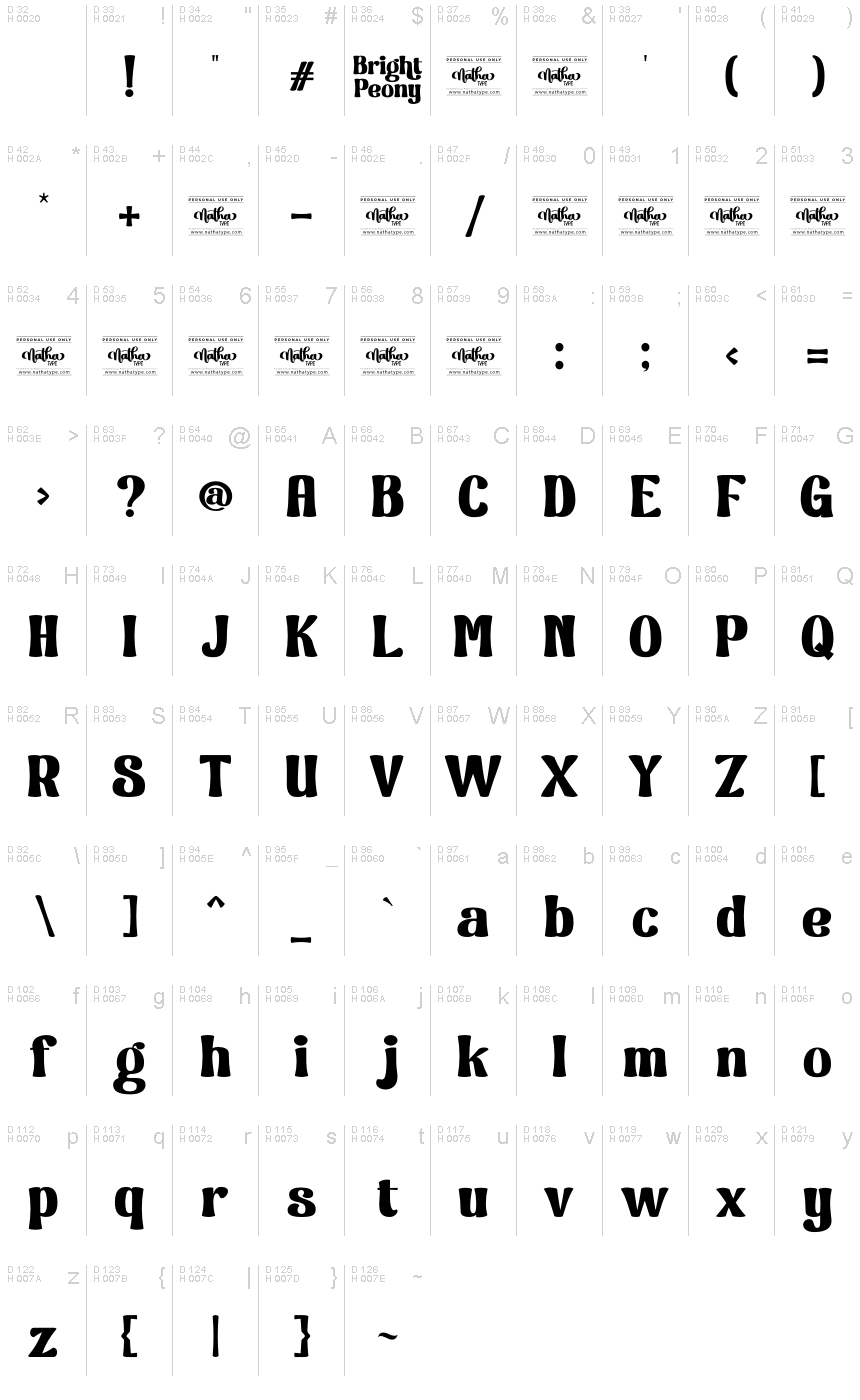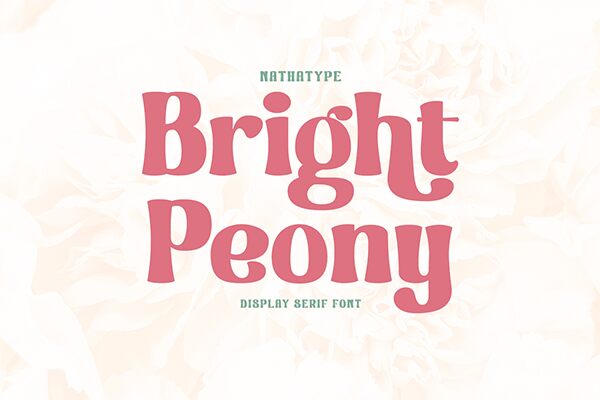
Bright Peony by Nathatype is a captivating display font that exudes a groovy, bold aesthetic. Its distinctive letterforms and dynamic strokes create an eye-catching, retro-inspired look that evokes a sense of energy and playfulness. The font's bold weight and distinctive character shapes make it a standout choice for attention-grabbing headlines, vibrant branding, and retro-themed design projects.
Bright Peony's versatility allows it to shine in a variety of applications, from bold logo design and impactful poster campaigns to retro-inspired packaging and eye-catching social media graphics. Its bold, groovy style lends itself well to creative projects that aim to capture a nostalgic, vintage-inspired vibe while maintaining a contemporary flair.